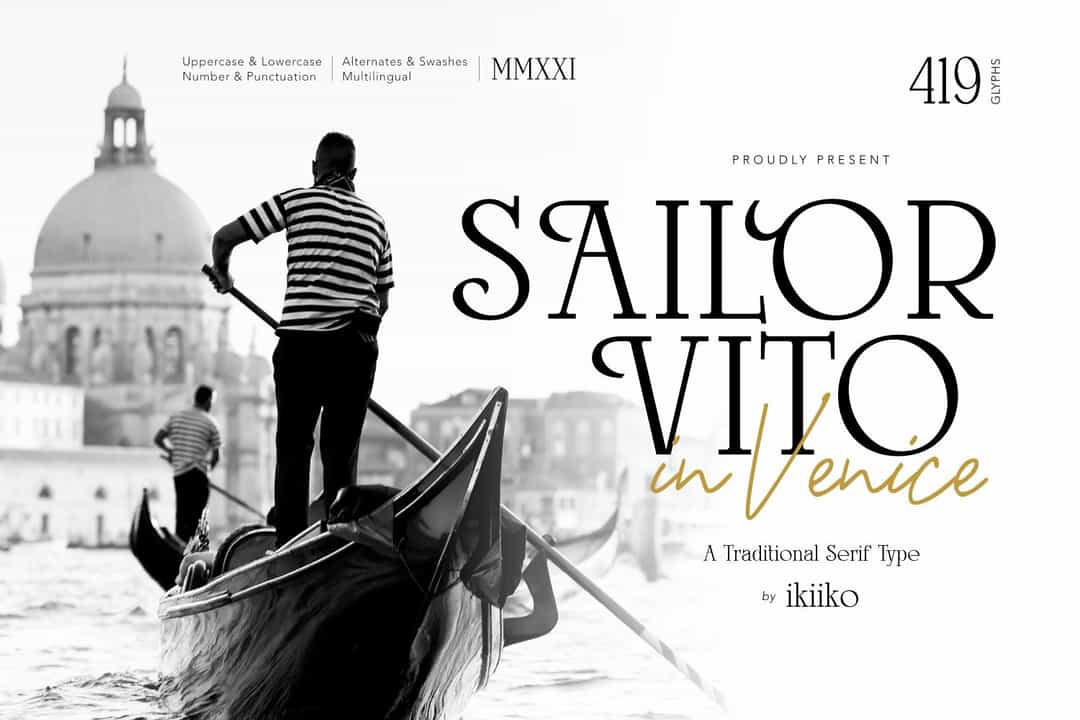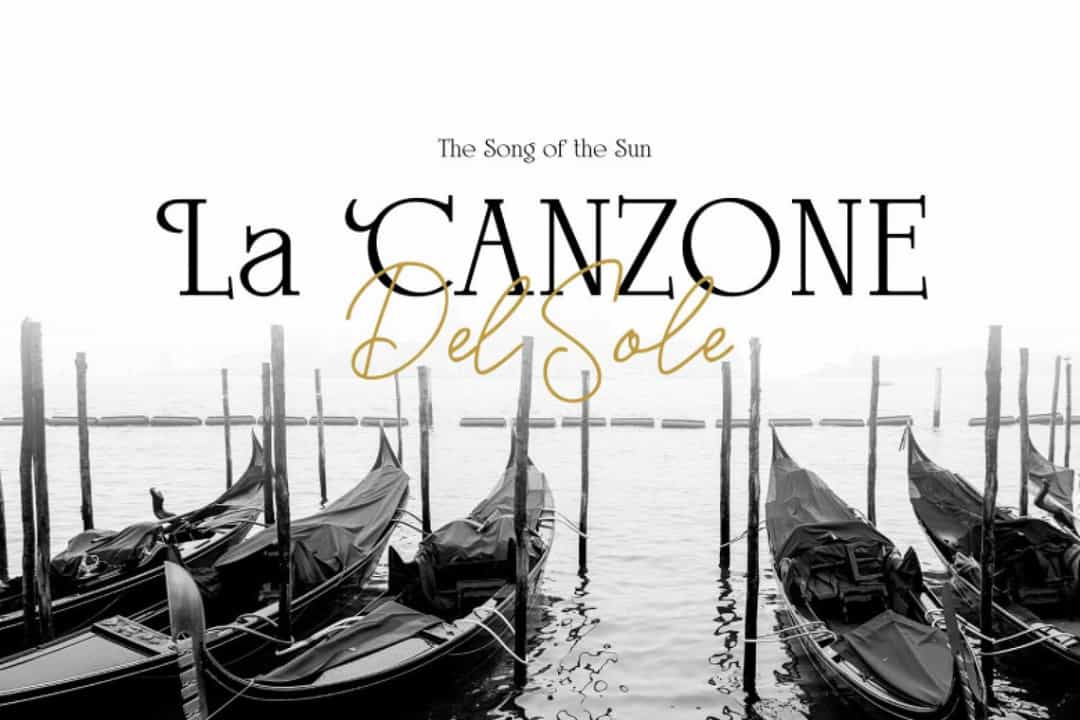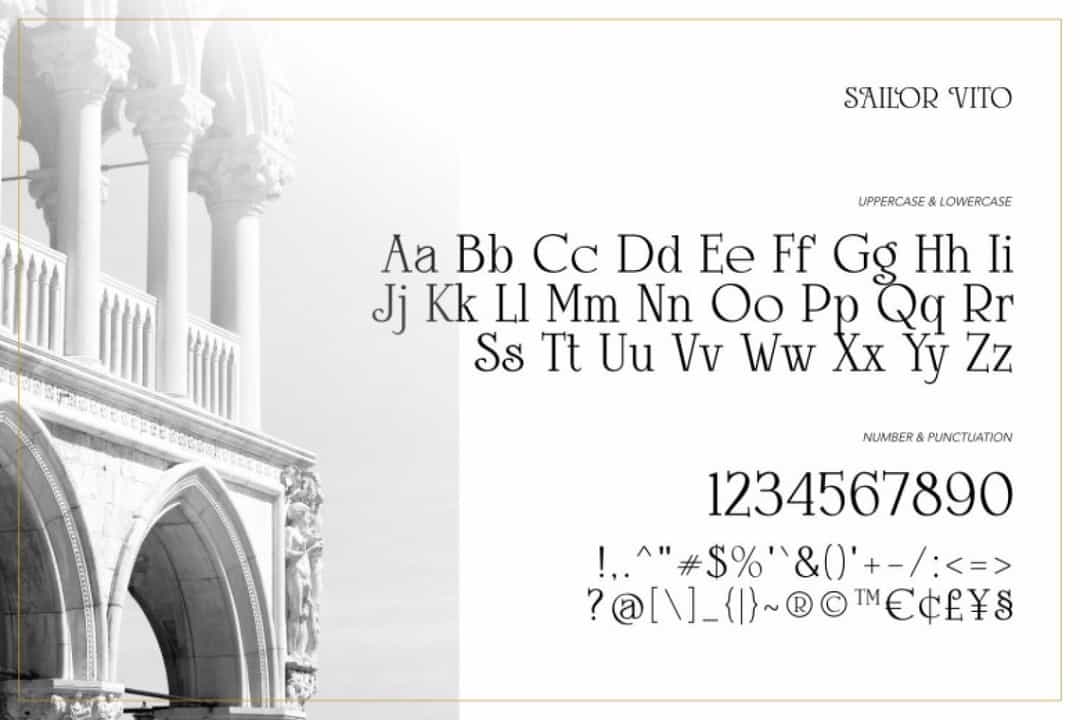
Sailor Vito is an old-fashioned serif typeface with elements of modernity and vintage English design, featuring an eye-catching serif hook. Ideal for branding magazines, travel arrangements, flyer designs posters inspiring photographs quotes or as text overlay for photos this font offers simple designs with its subtle but distinctive serif hook – ideal for magazine designs and backgrounds that require text overlay.